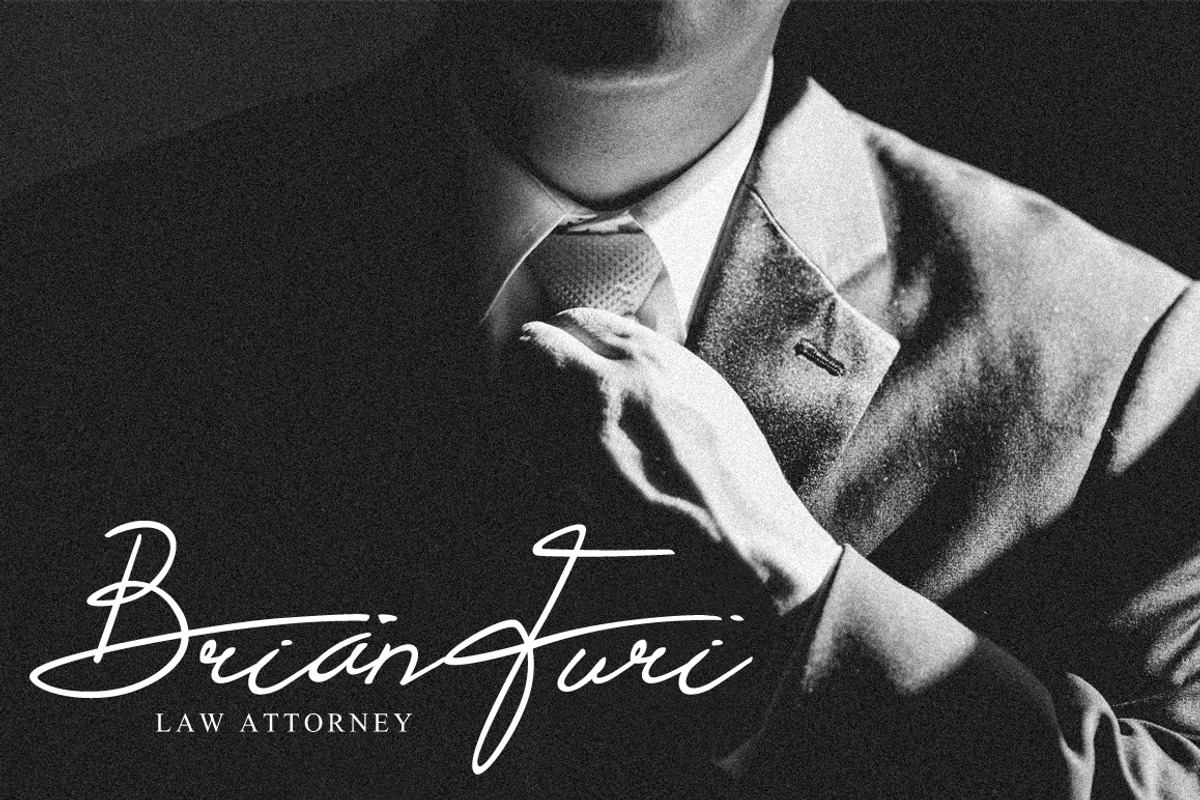
Proudly Signature Script
Proudly is modern classy handwriting font that give you a personal signature style with just a few click!
This font suitable for your modern or classic design : Signature. Logo. Branding. Invitation. Blog Headline and many more.